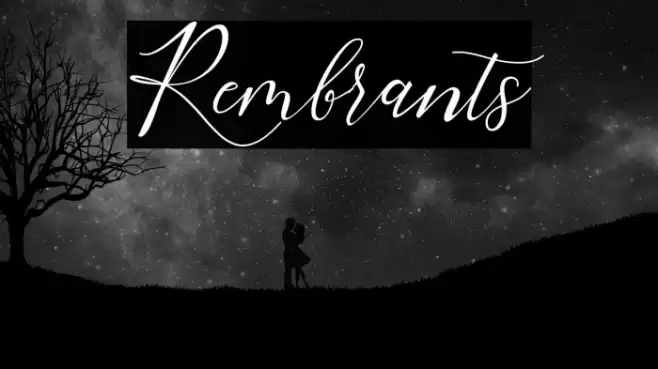
Rembrants Font
Rembrants Description
This elegant script font features flowing, interconnected letters with a classic calligraphic style. The uppercase letters are ornate with sweeping curves and flourishes, while the lowercase letters maintain a consistent flow, enhancing readability. The font exhibits a delicate balance between thick and thin strokes, adding a sophisticated touch. Its graceful appearance makes it ideal for formal invitations, branding, and decorative purposes. The numerals and special characters are designed to complement the overall aesthetic, ensuring a cohesive look across all text elements.
An elegant script font with flowing, interconnected letters and classic calligraphic style from Uncategorized fonts.
- Proposed Projects: Ideal for wedding invitations, luxury branding, greeting cards, and decorative signage.
- Overall Style: Classic
- Use Case: Logos, Invitations, Decorative Text